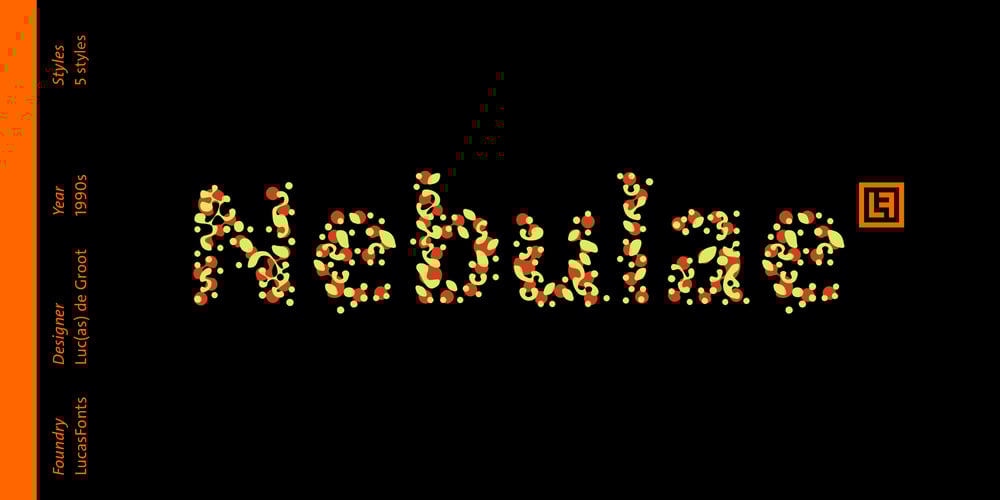
Nebulae Font Family was designed by Luc(as) de Groot and published by LucasFonts. Nebulae contains 5 styles and family package options. Almost every type designer feels the need, from time to time, to interrupt his or her serious work on complex text type systems for something more playful. In Luc(as)’s case this has often meant designing more typefaces. In the early 1990s, while working on Thesis, Luc(as) drew several display faces which were based on the shapes of TheSans but were either de(con)structive versions or experimental variations. Probably the most innovative of these was Nebulae, in which the lettershapes have been dissolved into clouds of bubbles; the three versions can be layered to obtain a denser (and more legible) structure which can also be multi-coloured. A fourth version called ThreeDee (3D) offers a convincing simulation of three-dimensional bubble-like type floating in space.